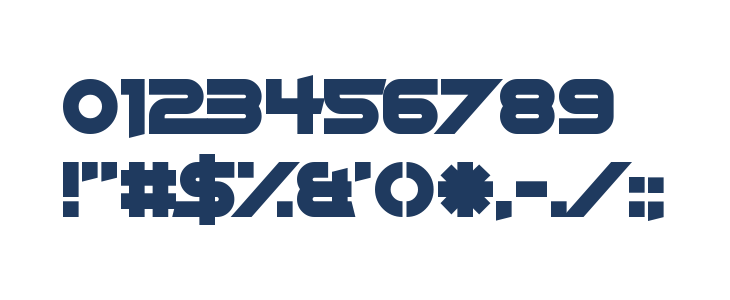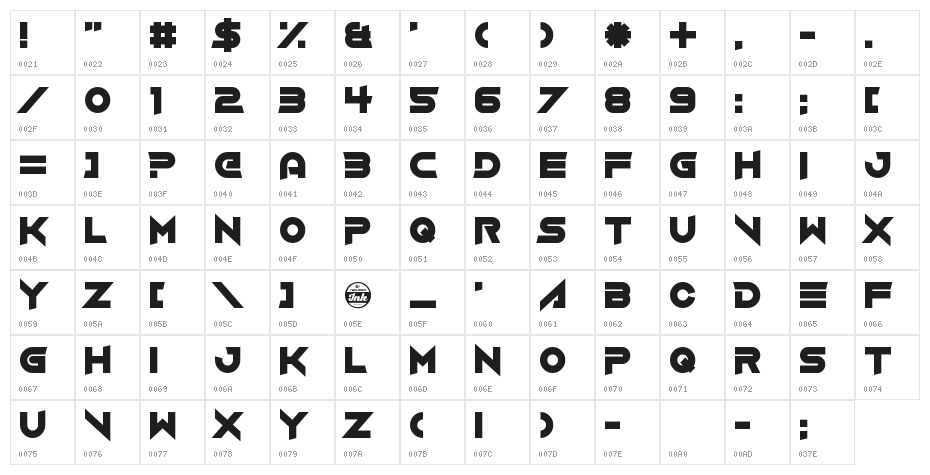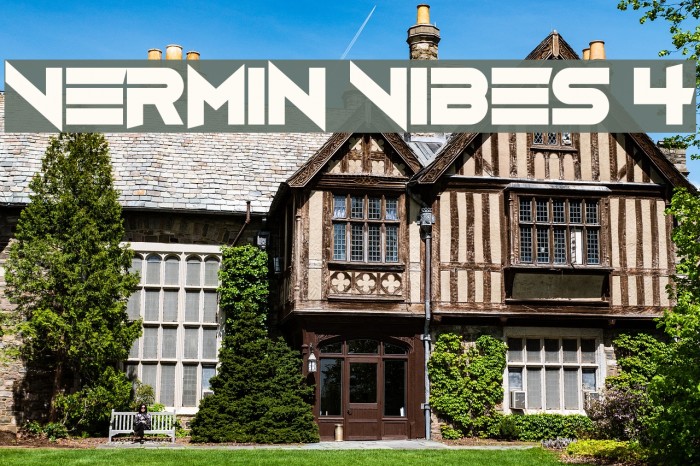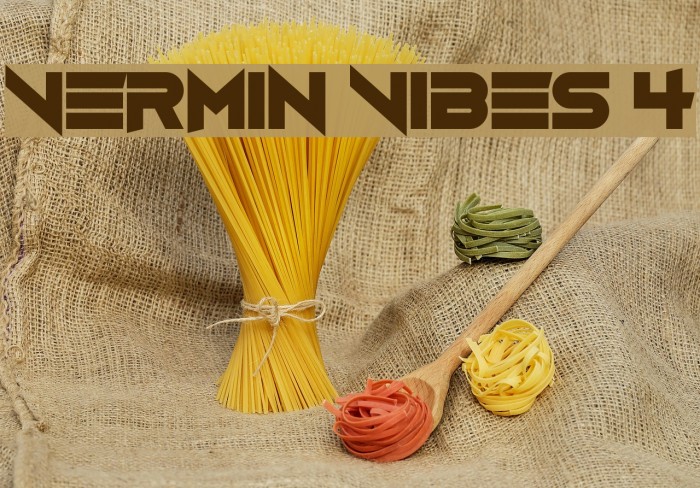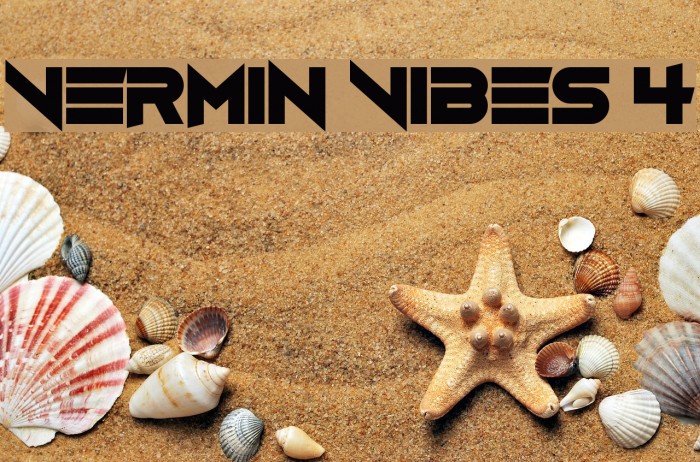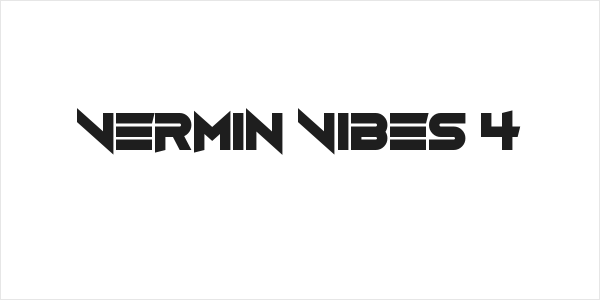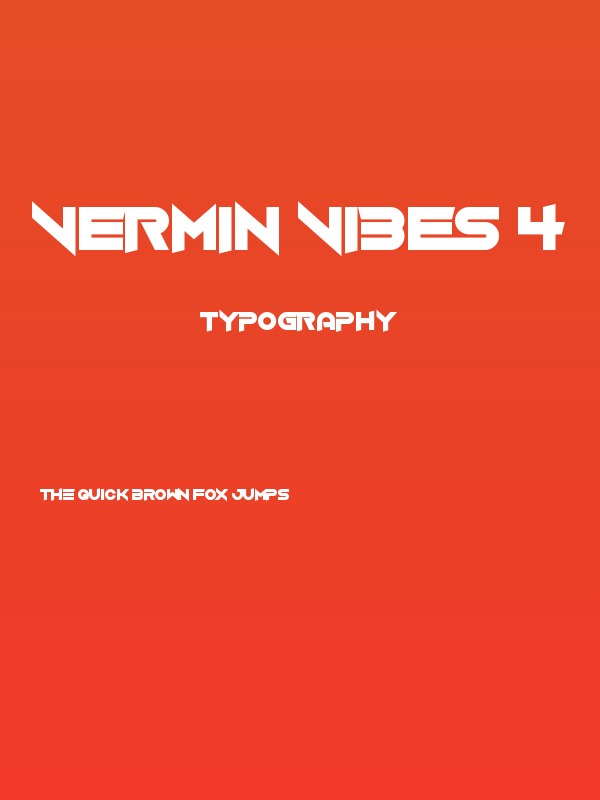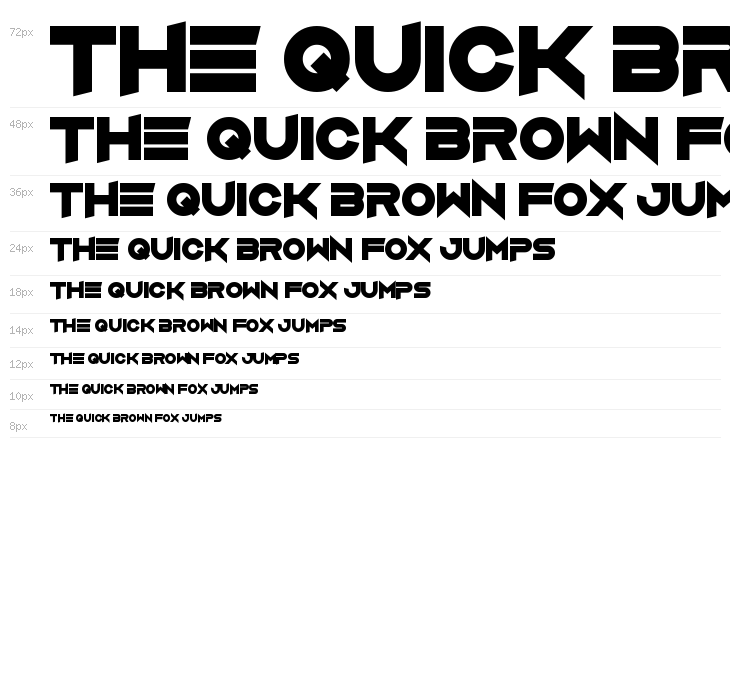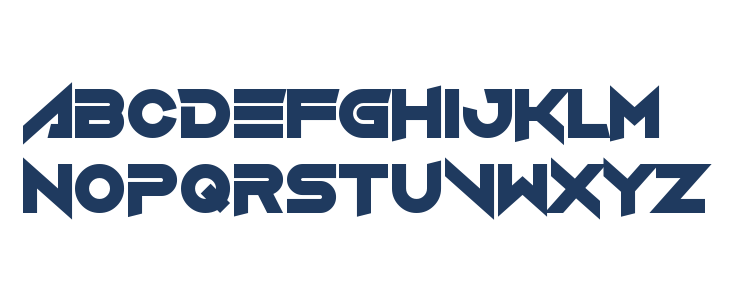
Vermin Vibes 4 Font
Vermin Vibes 4 Description
This font features a bold, geometric design with sharp angles and a futuristic aesthetic. The characters are constructed with solid, block-like shapes that convey a sense of strength and modernity. The uppercase and lowercase letters maintain a consistent style, with unique cuts and angles that add a dynamic feel. Numbers and special characters follow the same design principles, ensuring uniformity across all glyphs. The font's distinct style makes it ideal for projects that require a bold and impactful visual statement.
| Proposed Projects | Ideal for sci-fi themed designs, video game graphics, posters, and branding that requires a modern and bold look. |